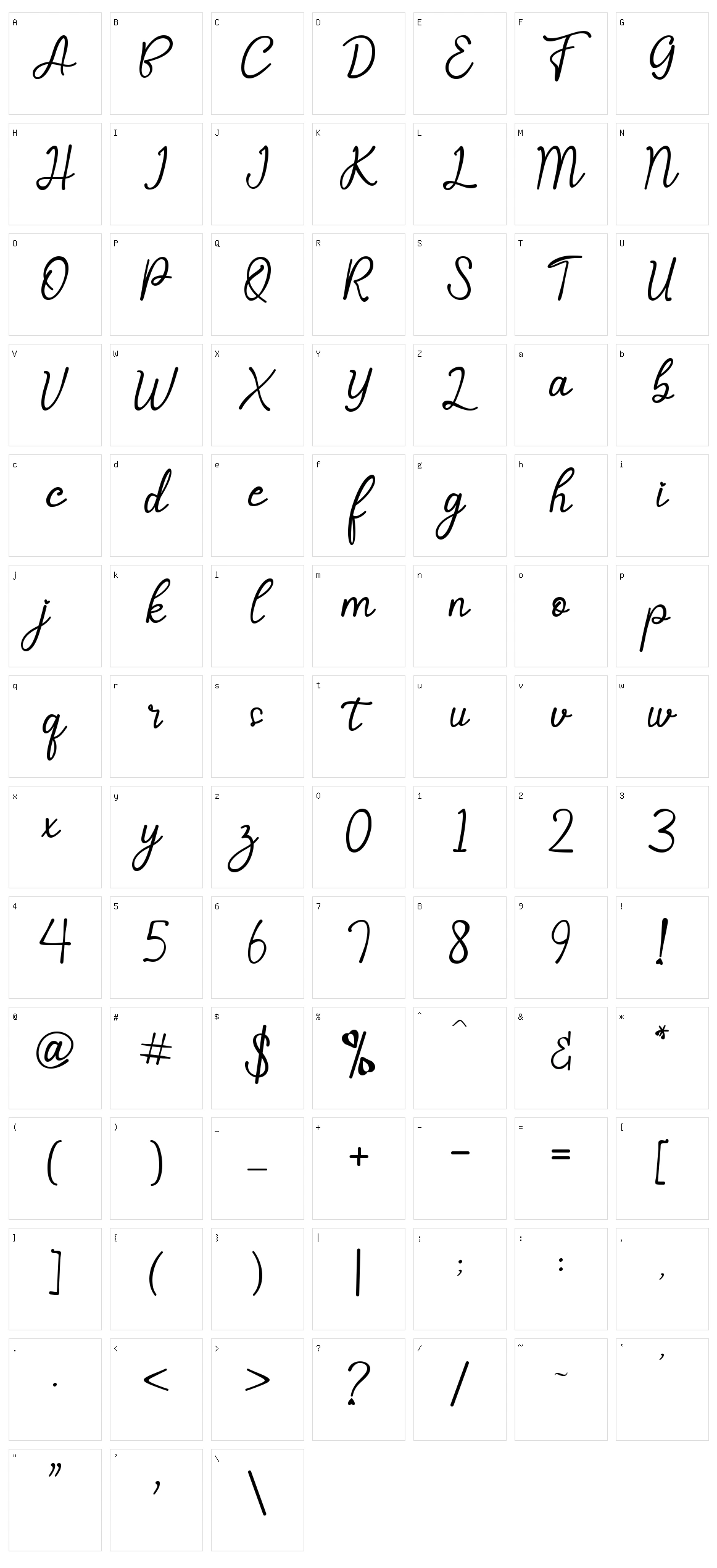
The free font Selvia Cahya is carefully designed by Yoga Letter, showcasing a thoughtful balance of creativity and usability and falls under the Script font style. When you download the ZIP file, it contains only 77.43 KB of font files, making it lightweight and quick to download. Please review the license details below to understand permitted usage and distribution rights. If license information is not available, we recommend using this font for personal projects only or contacting the author directly for commercial usage permissions.